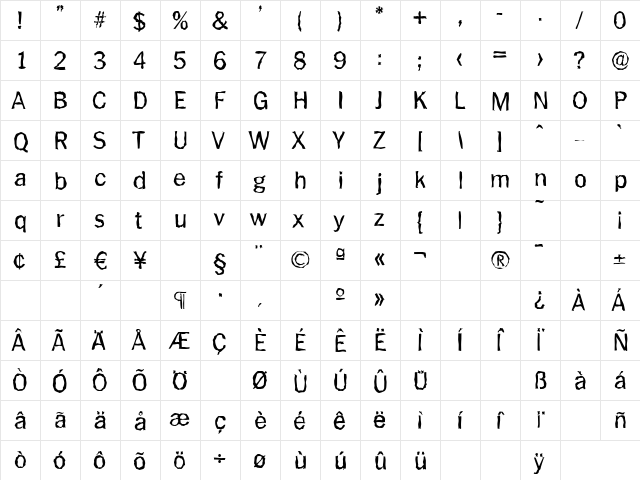
PlymouthRandom Regular
Design Context for PlymouthRandom Typeface
PlymouthRandom is a composed and adaptable typeface that performs quietly and consistently across a wide range of design contexts.